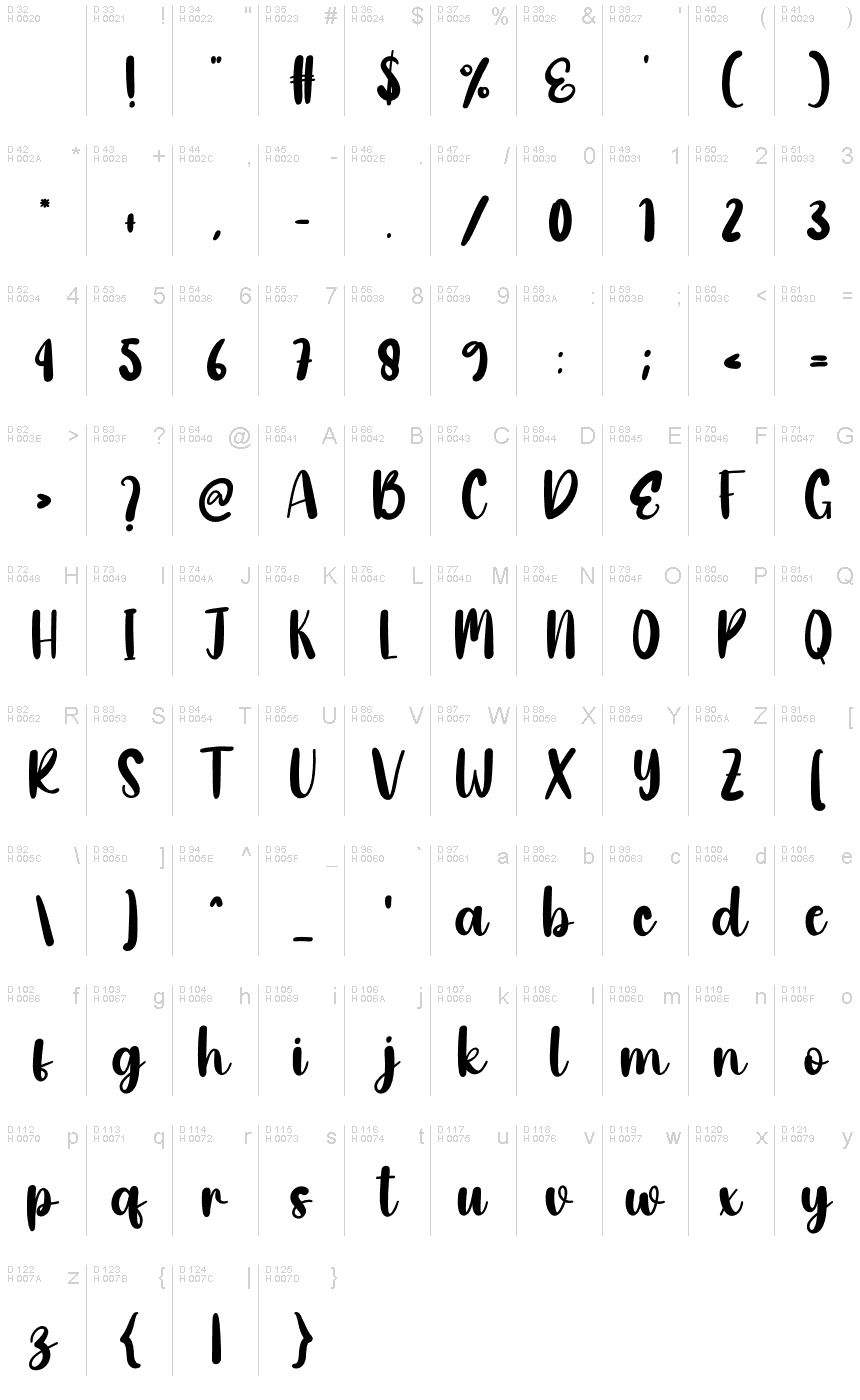
Masculine
Masculine, designed by scratchones, is a bold and striking marker font that commands attention. With its semi-bold weight, it is perfect for branding projects that require a strong and unique typeface. The edgy yet readable style of Masculine makes it ideal for use in advertising campaigns, posters, and social media graphics. Its versatility allows it to be used in both digital and print formats, making it a go-to choice for designers looking to add an element of masculinity to their work. Let Masculine elevate your designs with its distinctive style and bold presence.
the latest style letters are perfect for wall displays, wedding invitations, social media post logos, advertisements, product packaging, product designs, labels, photography, watermarks, invitations, stationery, and any project that requires taste handwriting.